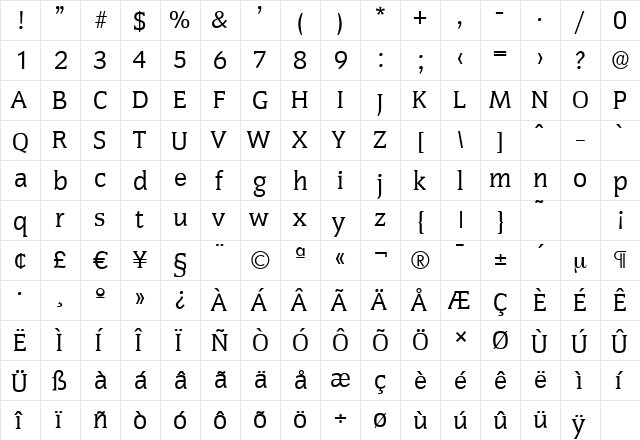
CongressSerial Regular Font Preview
CongressSerial Regular
CongressSerial Regular Font Details
Design Context for CongressSerial Typeface
CongressSerial offers clean, dependable letterforms without strong stylistic allegiance, making it a practical choice for designers who need flexibility.